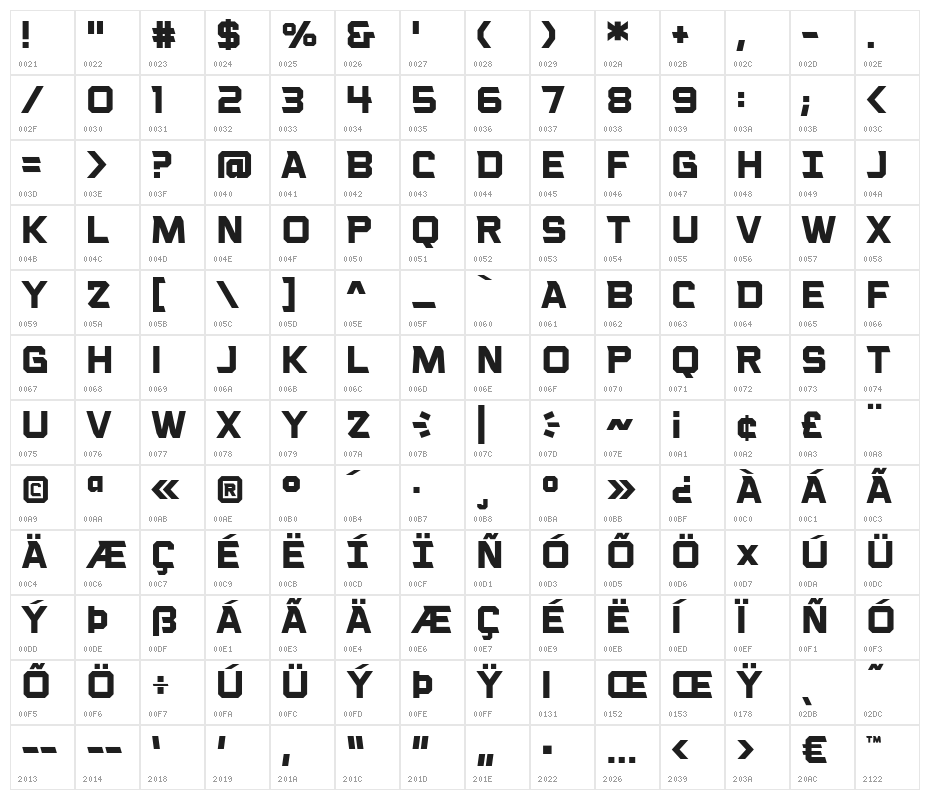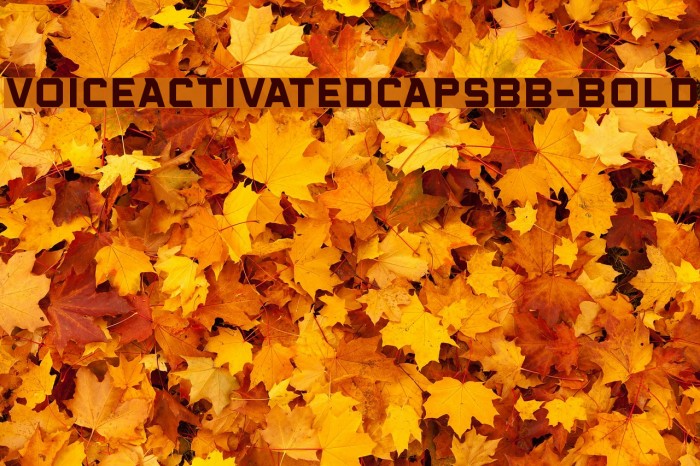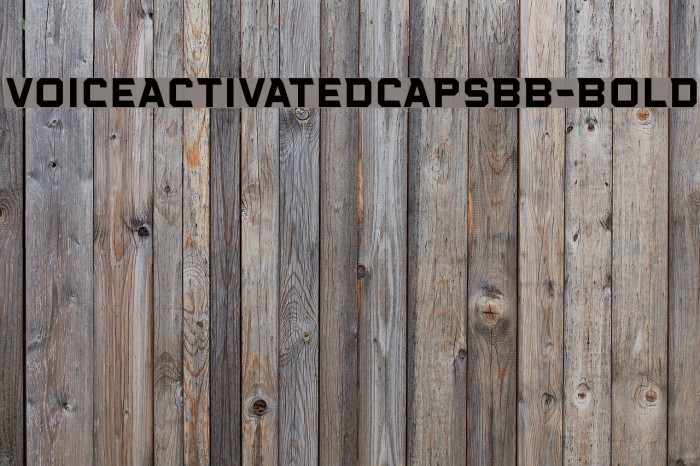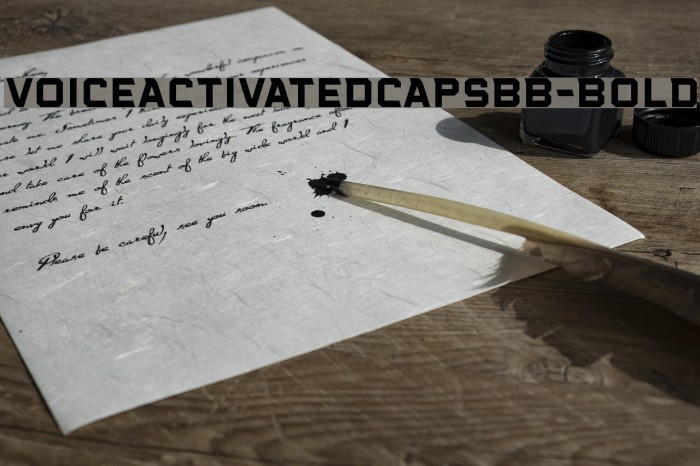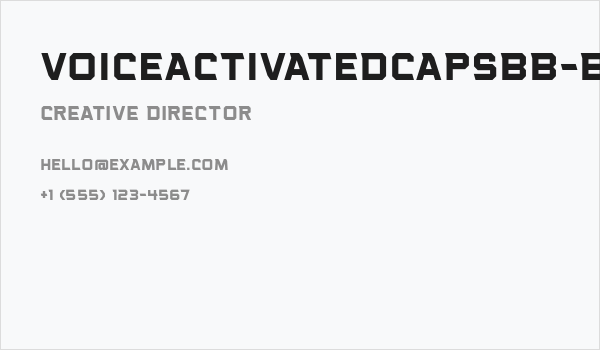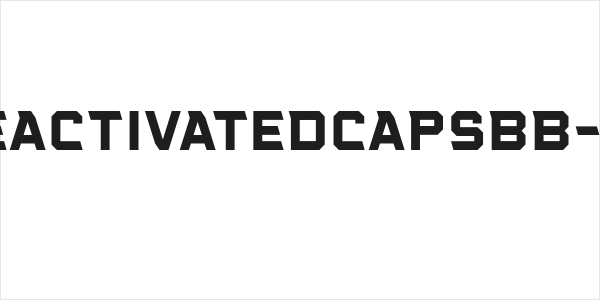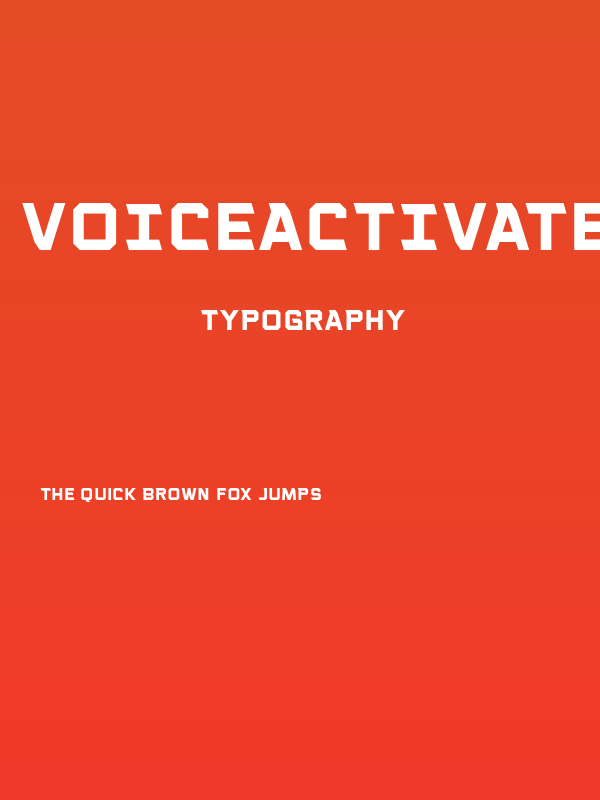
VoiceActivatedCapsBB-Bold Font
VoiceActivatedCapsBB-Bold Description
This font features a bold, geometric design with a strong, angular appearance. The characters are constructed with sharp edges and a uniform stroke width, giving it a modern and industrial feel. The uppercase and lowercase letters maintain a consistent style, with the uppercase being slightly more pronounced. The numerals and special characters follow the same design principles, ensuring a cohesive look across all glyphs. This font's boldness and distinct style make it suitable for impactful design projects.
Proposed ProjectsIdeal for branding, posters, headlines, and any project needing a strong, modern aesthetic.